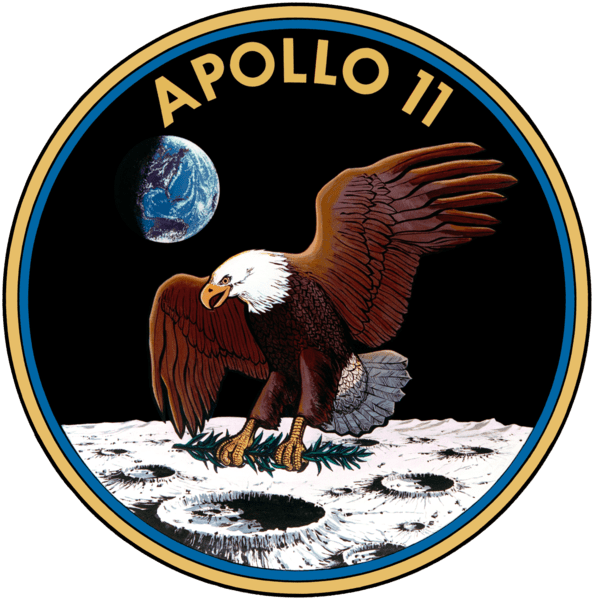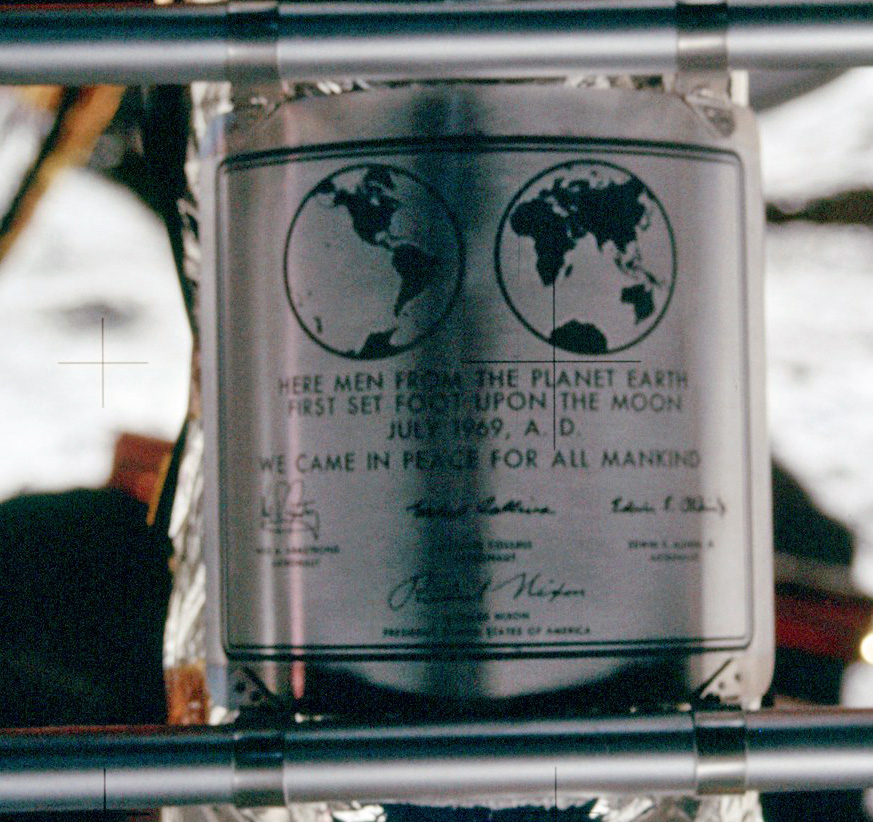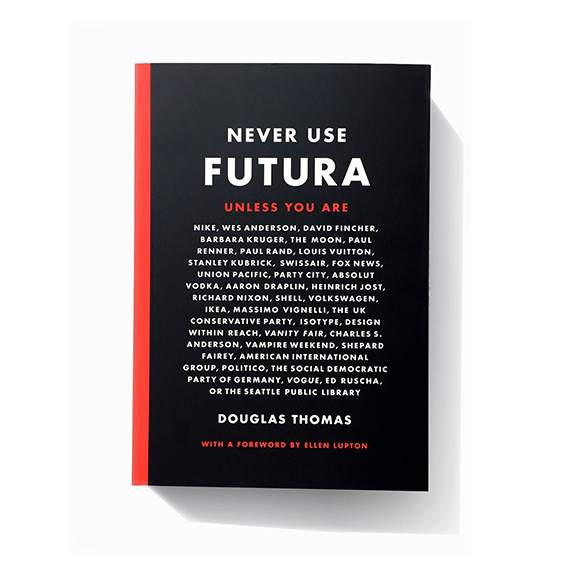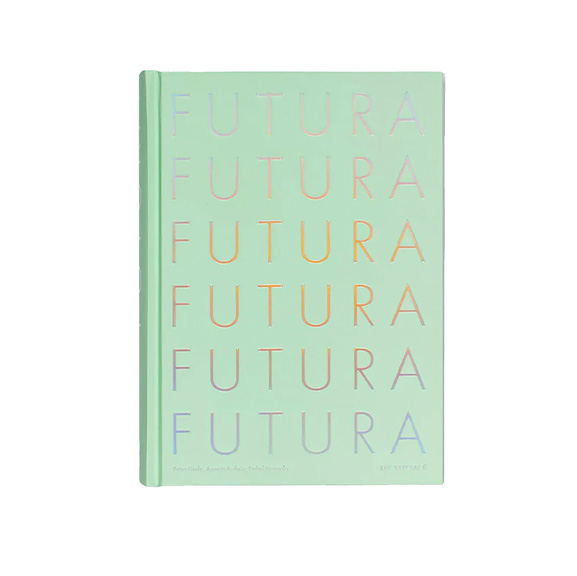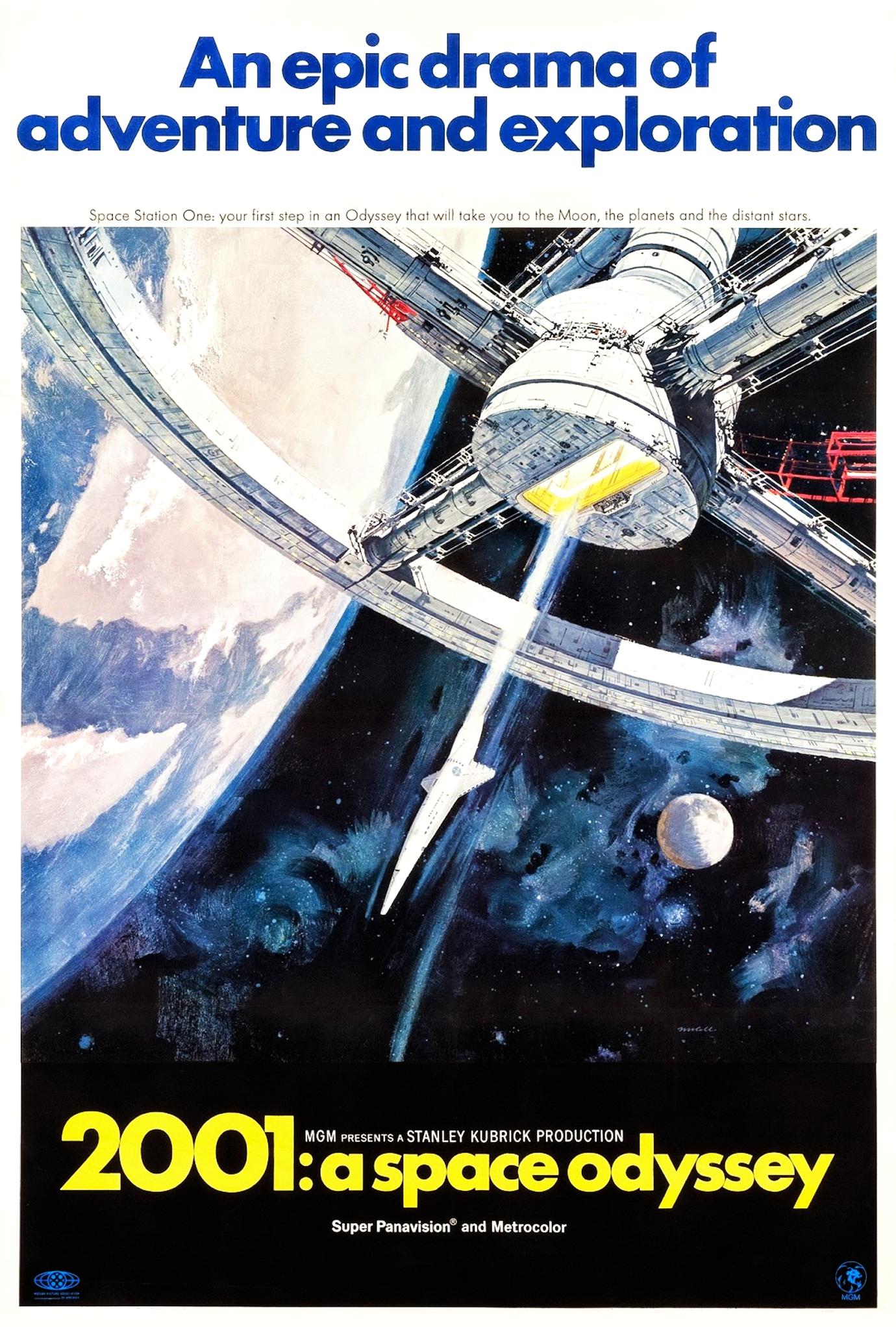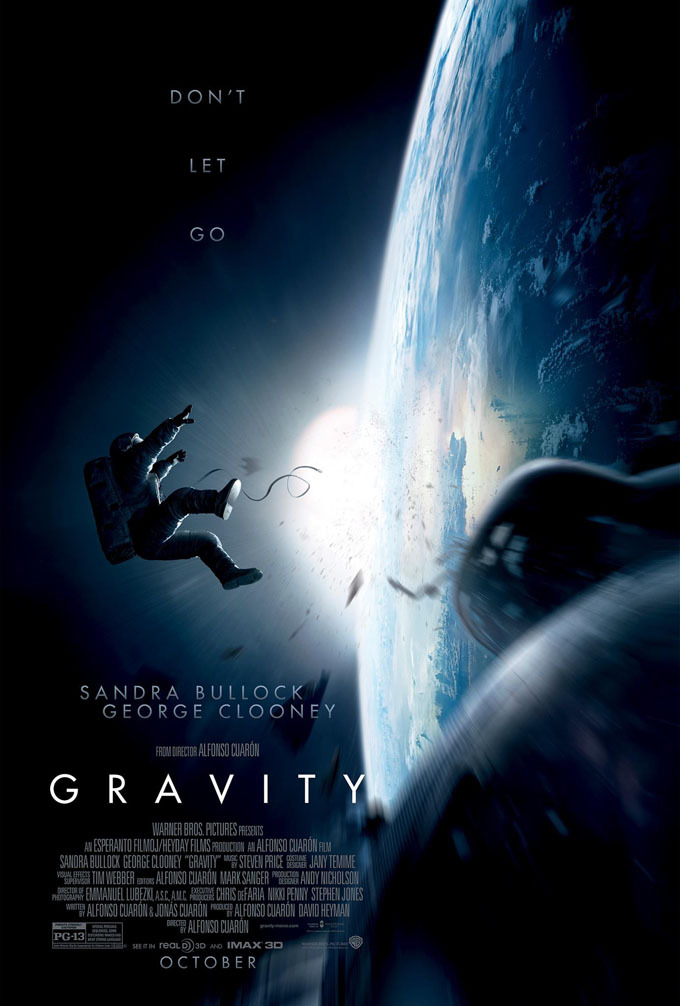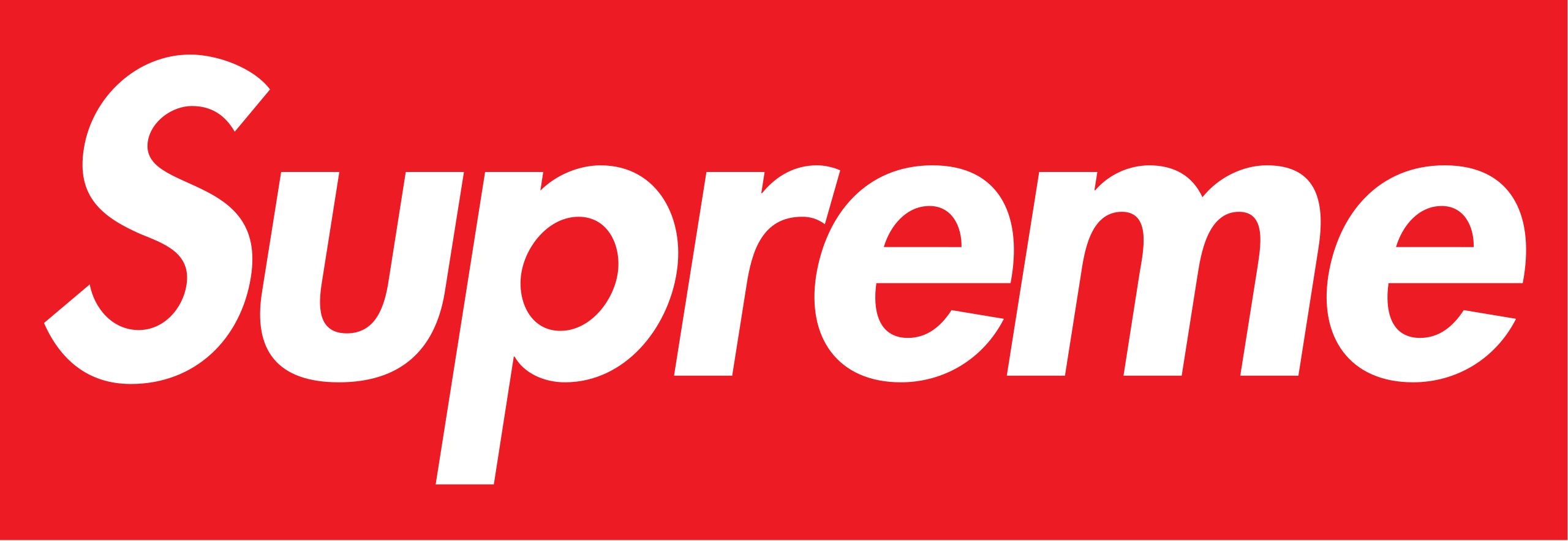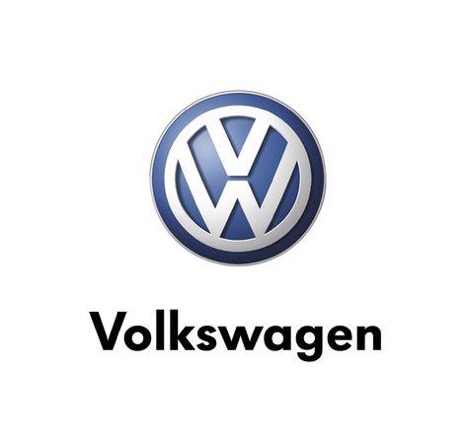
Ever heard about the Futura typeface? Of course, you have. A historical typeface created by Paul Renner, that once changed the course of design. Futura went to Hollywood, and became famous in the car, fashion, and art industries. Most importantly, was the first typeface to ever step on the moon! I know, it seems we are talking about a basketball player, or a famous actress. Sadly (or not) Futura now is everywhere we look: from designer chairs, rockets, and movies. You may also find the Futura font in the menu of that shady restaurant in the corner that has the business logo written in Comic Sans. So let’s say it is a widespread but misused font.
For non-designers, this typeface might scream “style” or “innovation”, but the truth is, Futura was once that, but today it might be part of the Museum of Typography. Don’t misinterpret what we are saying, we love Paul Renner, and the Futura typeface. We acknowledge the outstanding creation it is, but let’s face it, nowadays there are more than thousands of typefaces out there, available. Choosing Futura without any conceptual justification seems just lazy in terms of design.
That being said, we want to tell you everything we know (and there is a lot to be said) about the Futura typeface. This geometric and outstanding font family once disrupted the realms of visual communication, you’ll see why. We hope that by reading this article you’ll be an informed and conscious designer who chooses Futura for the right reasons.
The Origins of Futura
Many graphic design historians agree that Paul Renner, is the author of the Futura typeface. Nevertheless, some rumors attribute the initial sketches of the typeface to the architect Ferdinand Kramer in 1925, who worked together with Renner in the New Frankfurt housing project. Allegedly he made a drawing of a geometrical sans serif for the building department of the city of Frankfurt on which Renner based his Futura, debated by many, but still a rumor out there.
The Futura typeface is a geometric sans-serif initially designed as a contribution to Frankfurt’s Housing Project: New Frankfurt. This collaborative creation involved many talented architects, artists, and designers of the moment. Futura was released as a typeface by Bauer Type Foundry and was clearly influenced by the strong Bauhaus spirit of the time.
While Renner wasn’t formally linked to the Bauhaus movement, he embraced numerous aspects of its style and philosophy. He advocated for modern typefaces rather than simply reviving past designs. According to Typeroom: The typeface’s slogan in the font’s brochure was “die Schrift unserer Zeit” (“the typeface of our time”) and in English “the typeface of today and tomorrow.”
How almost the Nazi party ruined Futura forever
The Futura typeface, a Bauhaus-inspired font family, became a symbol for the future. It spread internationally quite fast, gaining global recognition and usage, even in the U.S., which was evidently a problem for the Nazi party. Futura’s sleek and modern design symbolized change and the essence of German aesthetics, making it a focal point for Hitler’s empire.
Luckily for this modern typeface, the regime showed a preference for the elaborate Fraktur typeface over the innovative Futura during most of its existence. Only almost at the end of World War II, they started using it discretely. By that time the Futura typeface was already considered an international icon, therefore Futura never got conceptually linked with Nazism.
Futura’s characteristics
A perfect marriage between form and function, characterized for high readability, modern strokes, geometric shape, and aextended family, which makes it also a very versatile typeface. Almost feels like a person: perfect marriage with a big family. Futura’s clean lines, simplified shapes, circular O’s, and sharp letters, represent a rational farewell of the historical ornamental typefaces and a step forward towards a new era where clarity and function in typography are primal.
Classified as a geometric sans-serif typeface, Futura typically comes in several weights and styles, although the specific number can vary depending on the version or foundry that produces it. The most common weights and styles of Futura include:
• Regular
• Bold
• Medium
• Light
• Book
• Heavy
• Extra Bold
Additionally, there may be italic or oblique versions available for some weights, providing further style variations. Some digital versions of Futura also include condensed or extended variants, offering even more flexibility for designers. Overall, Futura is known for its versatility and adaptability across a range of design applications.
4 Futura’s use cases that left a mark in history
#1 Futura became an icon in the film industry
Stanley Kubrick, 2001: A Space Odyssey Poster
Source: IMDB. Painting by Robert McCall
GRAVITY-MOVIE-POSTER
Source: IMDB.
Please note, that using Futura here is the most logical of choices. Is a movie about astronauts, that is targeted to almost the same audience as Kubrick’s Odyssey, but in different decades. Is a thought choice, the context of Futura worked in more recent times.
As noted by Maya Leack for 99designs , it is very interesting to see how this typeface became part of the movie industry, several other film posters also use Futura. American Beauty,  Gone Girl among others. Is it because of Kubrick’s success? Did Futura become part of the Hollywood ecosystem? Does it have a common place for the audience? Many reasons could be behind this phenomenon.
Always referring to the cinema niche, some filmmakers are totally obsessed with futura, like Wes Anderson, who has use it for several movie posters as well as for the graphic elements inside many of his movies.
#2 Futura was seen by millions because of The Volkswagen Logo
Volkswagen Logo
Source: The History of Futura , allegedly designed by Franz Xaver Reimspeiss and Nikolai Borg.
The relationship between Nazism and Futura explains this application of Futura. Being a typeface so representative of modernity and the Germany Hitler wished to convey, it was a very logical font choice. Volkswagen was a state-owned company at the time.
Previously called Volkswagenwerk, or “The People’s Car Company.”
In 1937, Hitler founded “The People’s Car Company.” He wanted to make a car that everyone could afford. He teamed up with Ferdinand Porsche to design the “KdF-Wagen.” But when World War II began in 1939, they had to stop making it.
Volkswagen faced challenges in America because of its Nazi connections and strange looks. In 1959, a clever ad campaign called the car the “Beetle” and emphasized its small size. This made it popular in the US. Later, the government sold most of Volkswagen to the public. The Beetle became the best-selling car worldwide, even beating Ford’s Model T.
In the 1970s, Beetle sales slowed down. Volkswagen introduced new models like the Rabbit and Golf to bring back interest. In 1998, they launched the “New Beetle.” But after over 70 years and making millions of cars, the last original Beetle was made in 2003, marking the end of a Volkswagen era. But this car brand’s story continues to date.
#3 Futura made a strong statement in the fashion industry and in art
Supreme Logo
Supreme Logo. Source: Wikipedia
Supreme logo is Futura all the way: Heavy, Oblique, and White. The creator James Jebbia got inspired in Barbara Kruger’s work, who used the typeface in the same way over a red box.
#4 Futura was the first typeface to step on the moon
Apollo 11 Lunar plaque
The Apollo 11’s Lunar Plaque with the signatures of Neil Armstrong, Michael Collins, Buzz Aldrin, and U.S. President Nixon. Source: Wikipedia
Apollo 11 Logo, Futura
Apollo 11 logo. Source: Wikipedia
One of Futura’s most astonishing accomplishments happened in 1969 when this typeface became the first one to have ever existed on the moon, together with Armstrong and Aldrin who were officially the first humans. Read more about this interesting fact.
This site contains affiliate links, view the disclosure agreement for more information.
Where to download the Futura Font Family?
You can download the licensed version with your Adobe or at Bauer Types.
There are some free versions out there, but remember to always read the documentation, and to bear in mind that these might not be the original versions and they might be imperfect. We are not advising anything! But why don’t pay for an Adobe subscription? You have the typekit and your softwares, sounds like a good deal.
Books about the Futura Typeface
If you want to study more in-depth this historical typeface, you can read these books I found on Amazon, they are a great starting point:
Conclusion
Futura occupies a unique place in the pantheon of typefaces – and our hearts. It is one of the most commonly used typefaces, fonts to date. If you are talking about innovation, we would probably avoid using Futura for your project, but if you wish to revive the 1920s values or a specific moment in history, or a niche connected with what Futura represents, go for it.
It is a great typeface, has all the “checks” in typography: versatile, and legible. Just take into consideration all the baggage this typeface brings with it. So, welcome Futura for all its complexities, and use it wisely. There is always room for reinterpretation and reinvention.
Could Futura, nearly a century later, continue to ignite innovation?